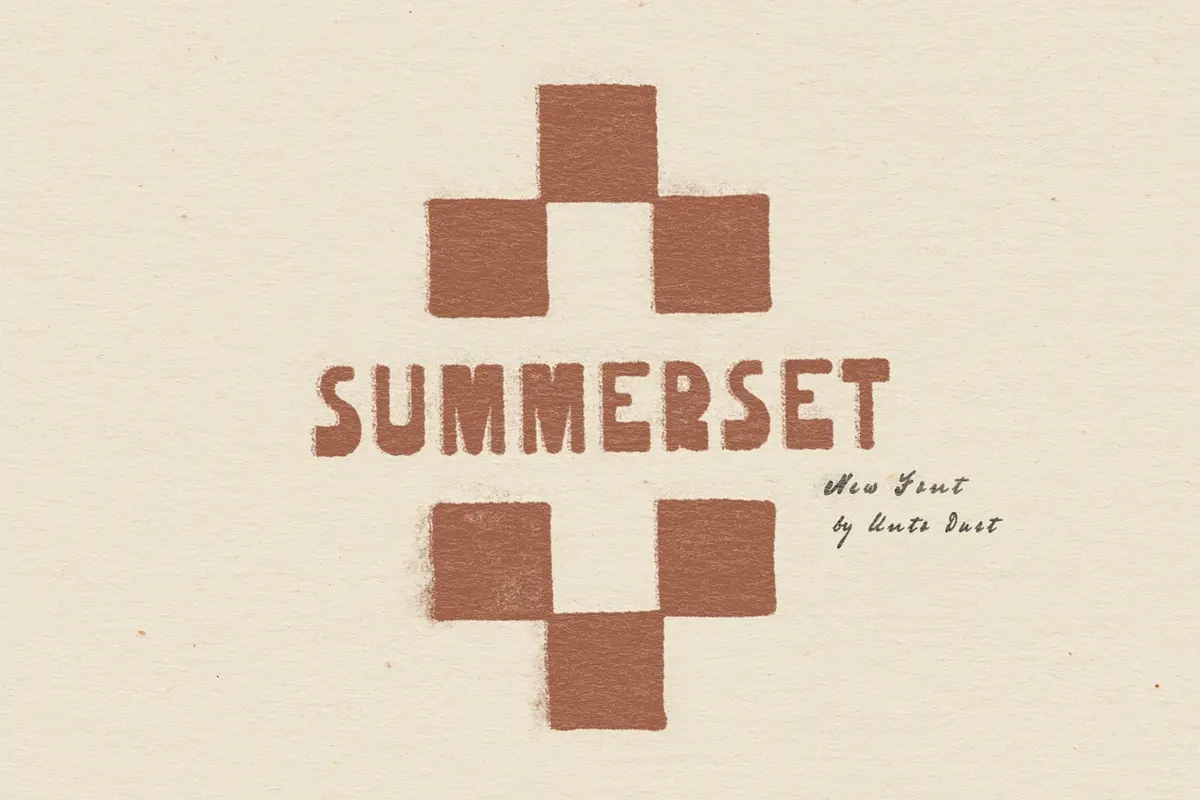
Summerset Hand Drawn Font is a unique typeface designed by Unto Dust, available on Creative Market. This font is ideal for projects that require a handcrafted, rustic feel, such as branding, packaging, and invitations.
• Design: Features uppercase and lowercase letters, numbers, punctuation, and multilingual support, all with a hand-drawn aesthetic.